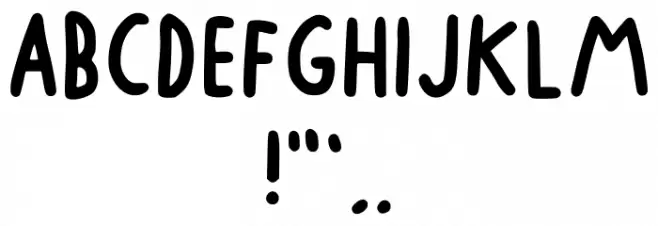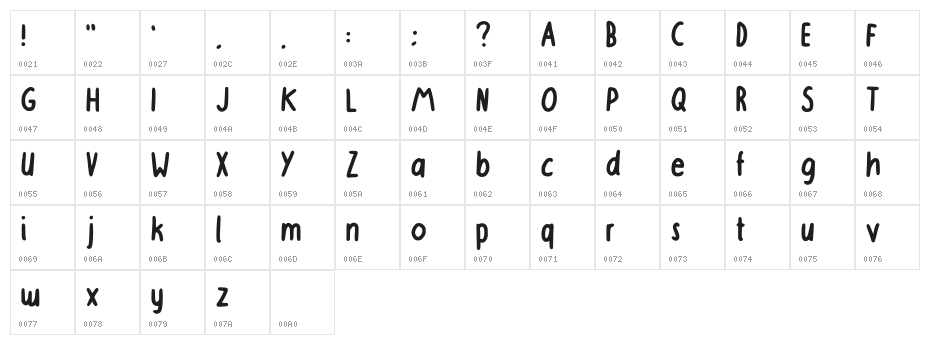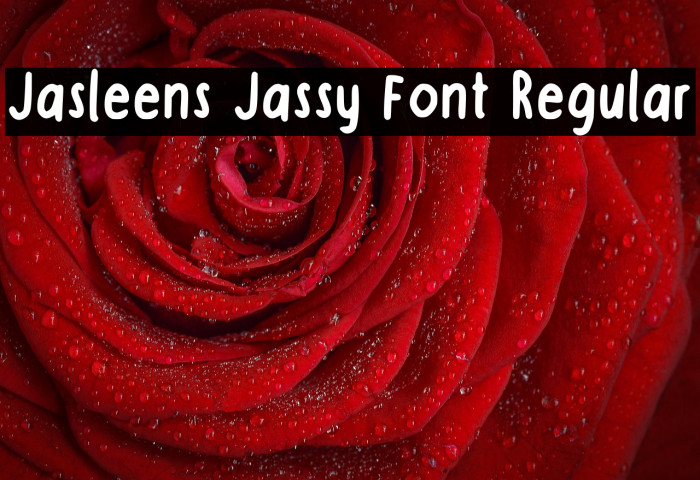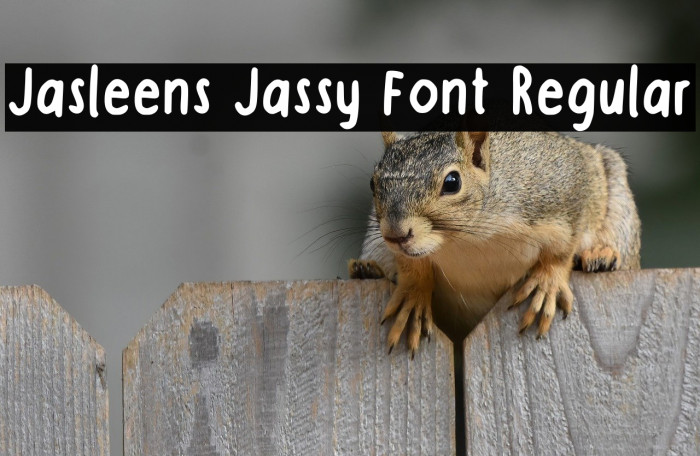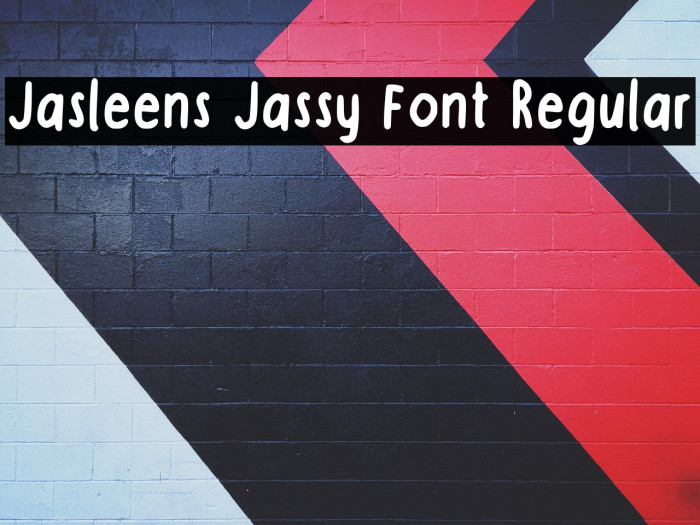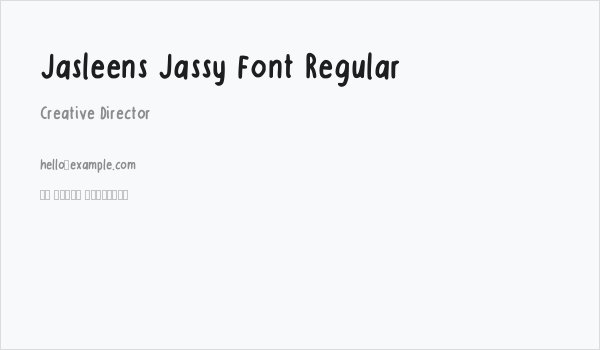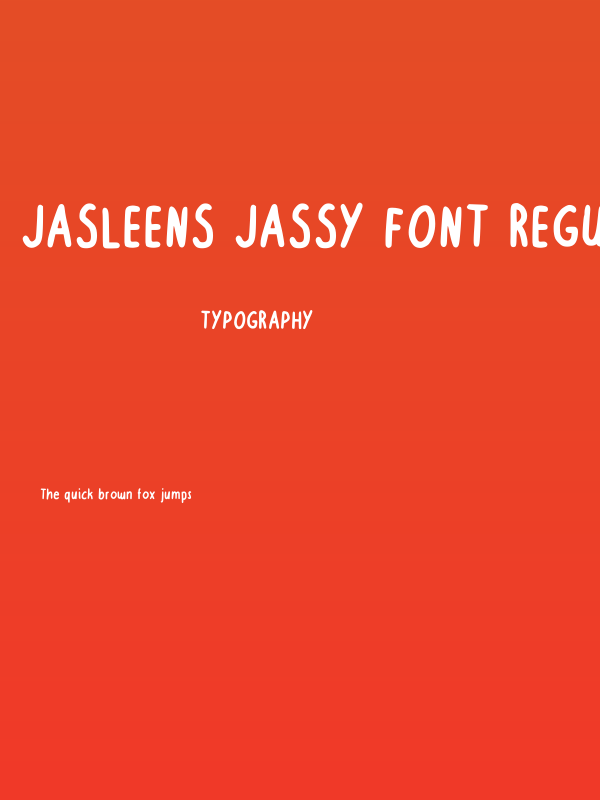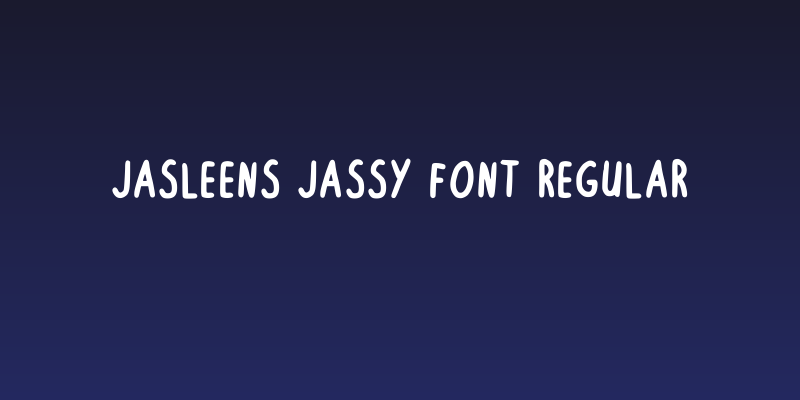
Jasleens Jassy Font Regular Font
Jasleens Jassy Font Regular Description
This font features a playful and informal style, characterized by its rounded and slightly irregular letterforms. The strokes are consistent in width, giving it a uniform appearance, while the slight variations in character shapes add a touch of whimsy. The font maintains a hand-drawn aesthetic, making it ideal for projects that require a personal and approachable feel. Its legibility is high, even at smaller sizes, due to the clear distinction between each character. The overall design is friendly and inviting, suitable for a variety of creative applications.
| Proposed Projects | Ideal for children's books, greeting cards, casual branding, and playful posters. |